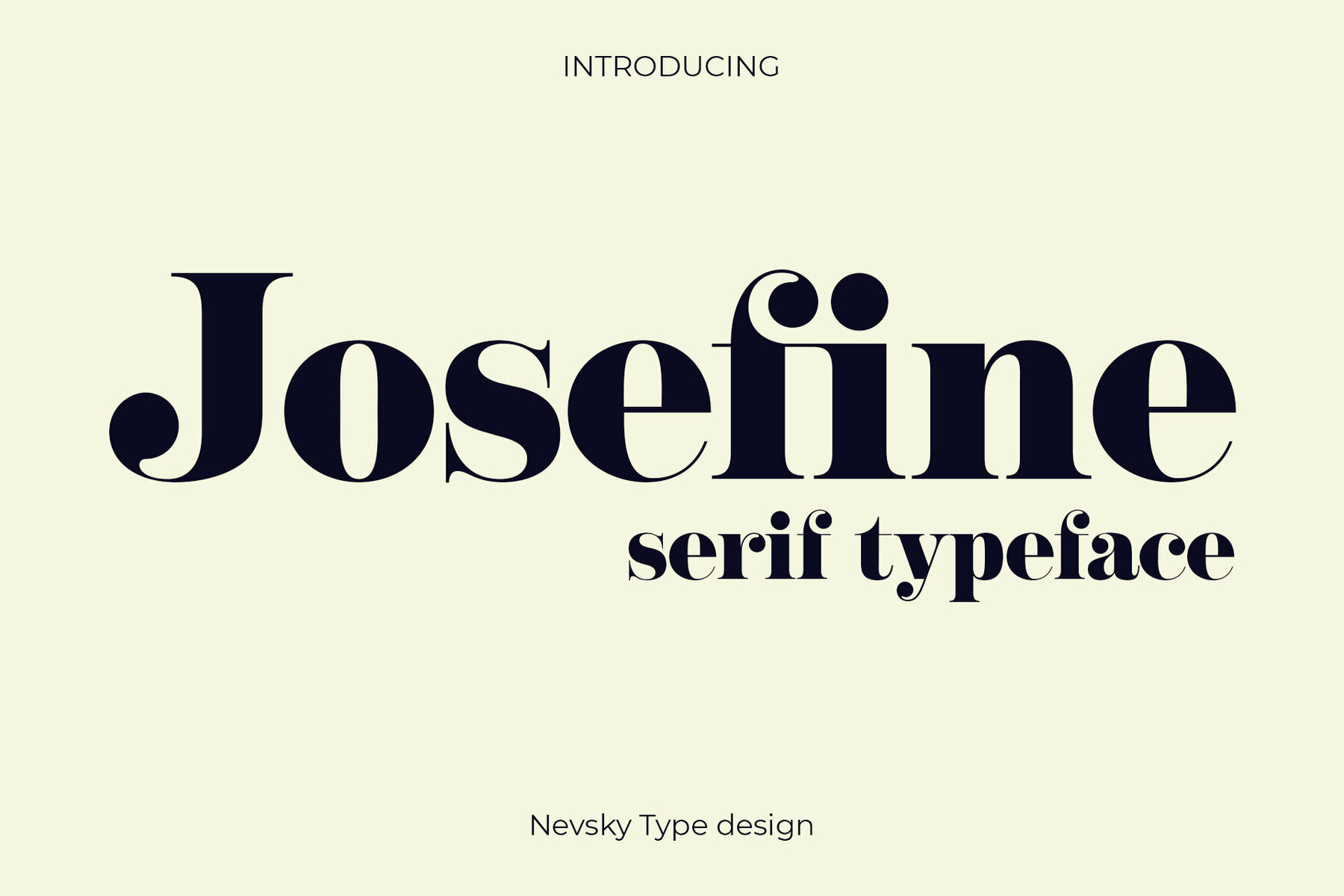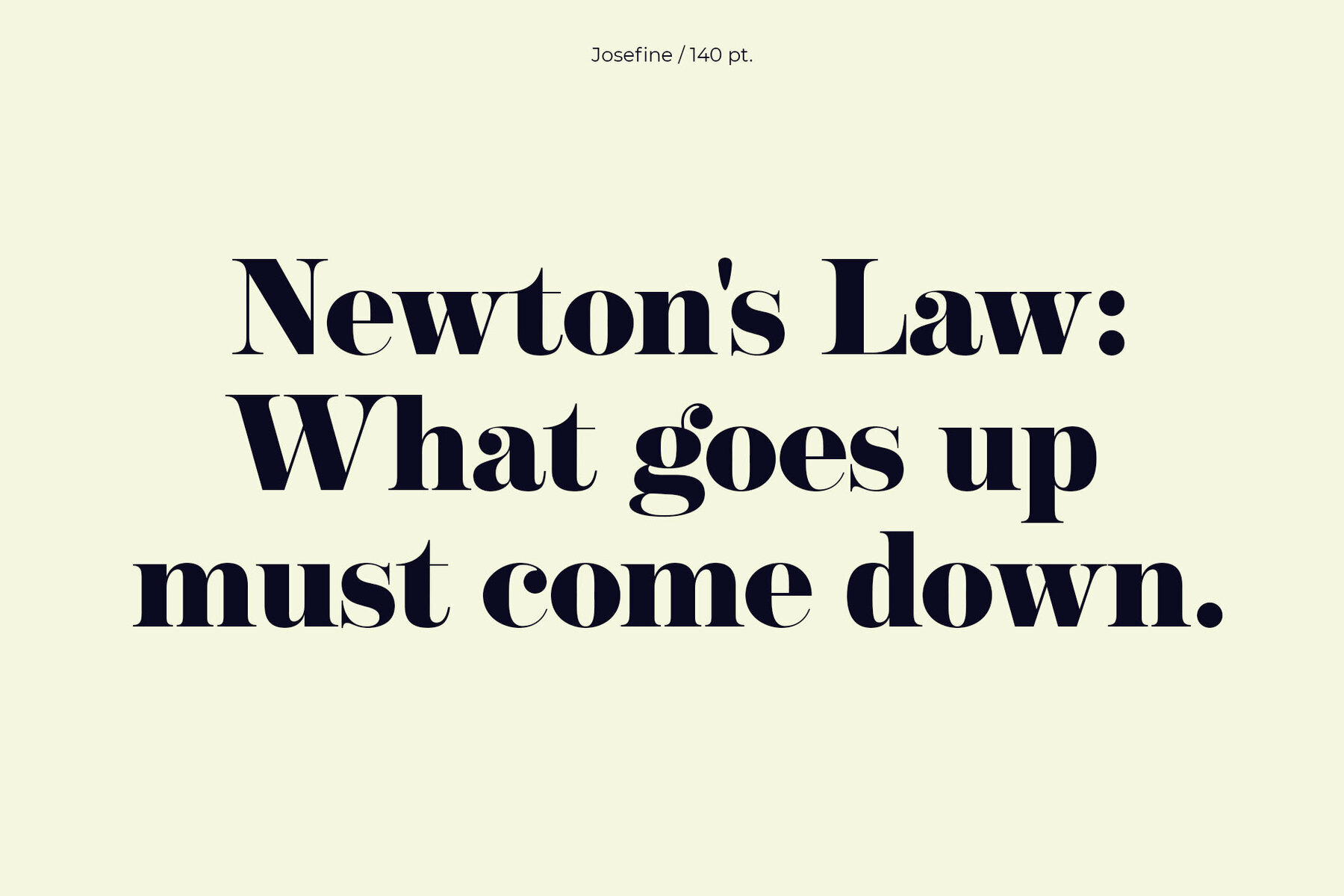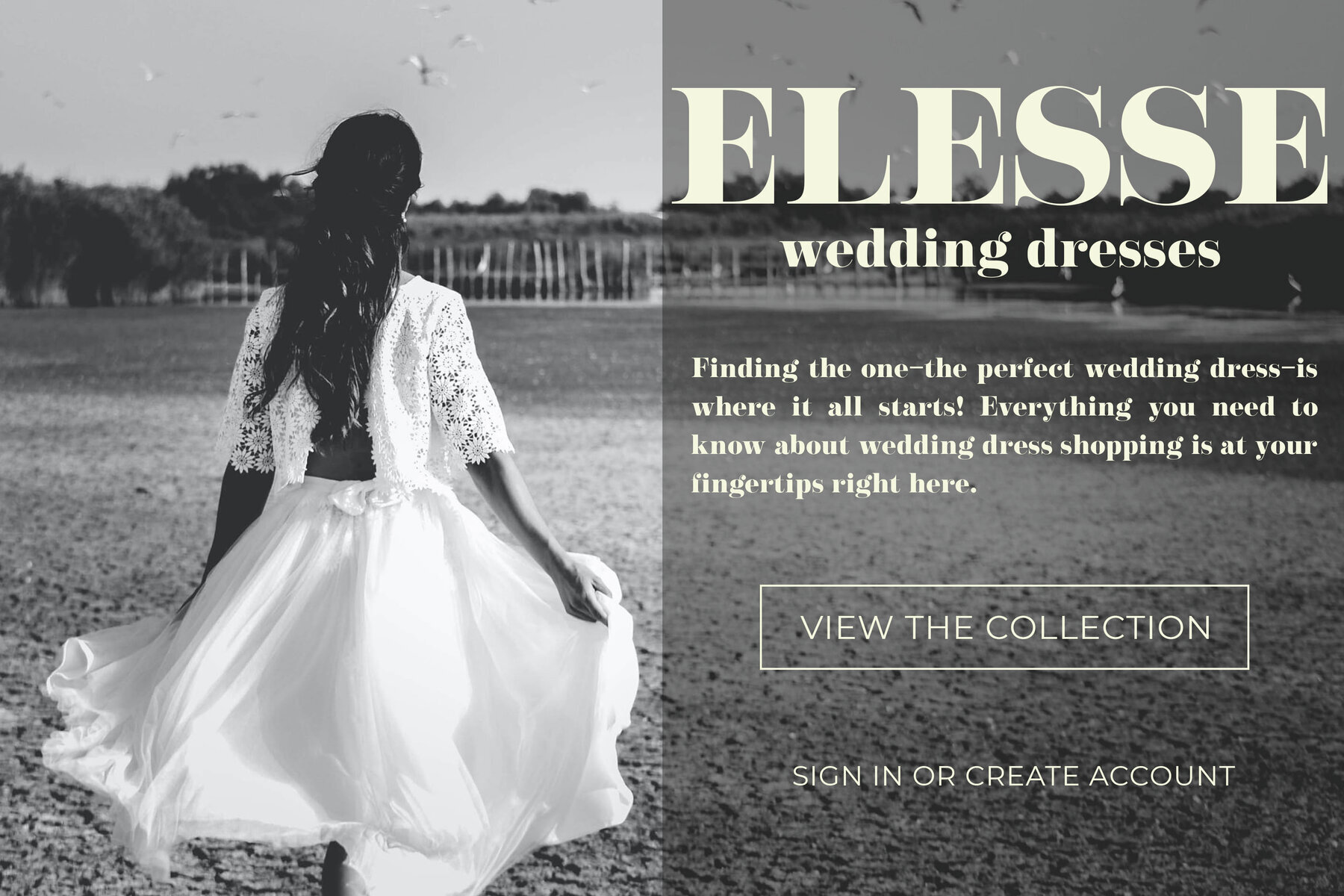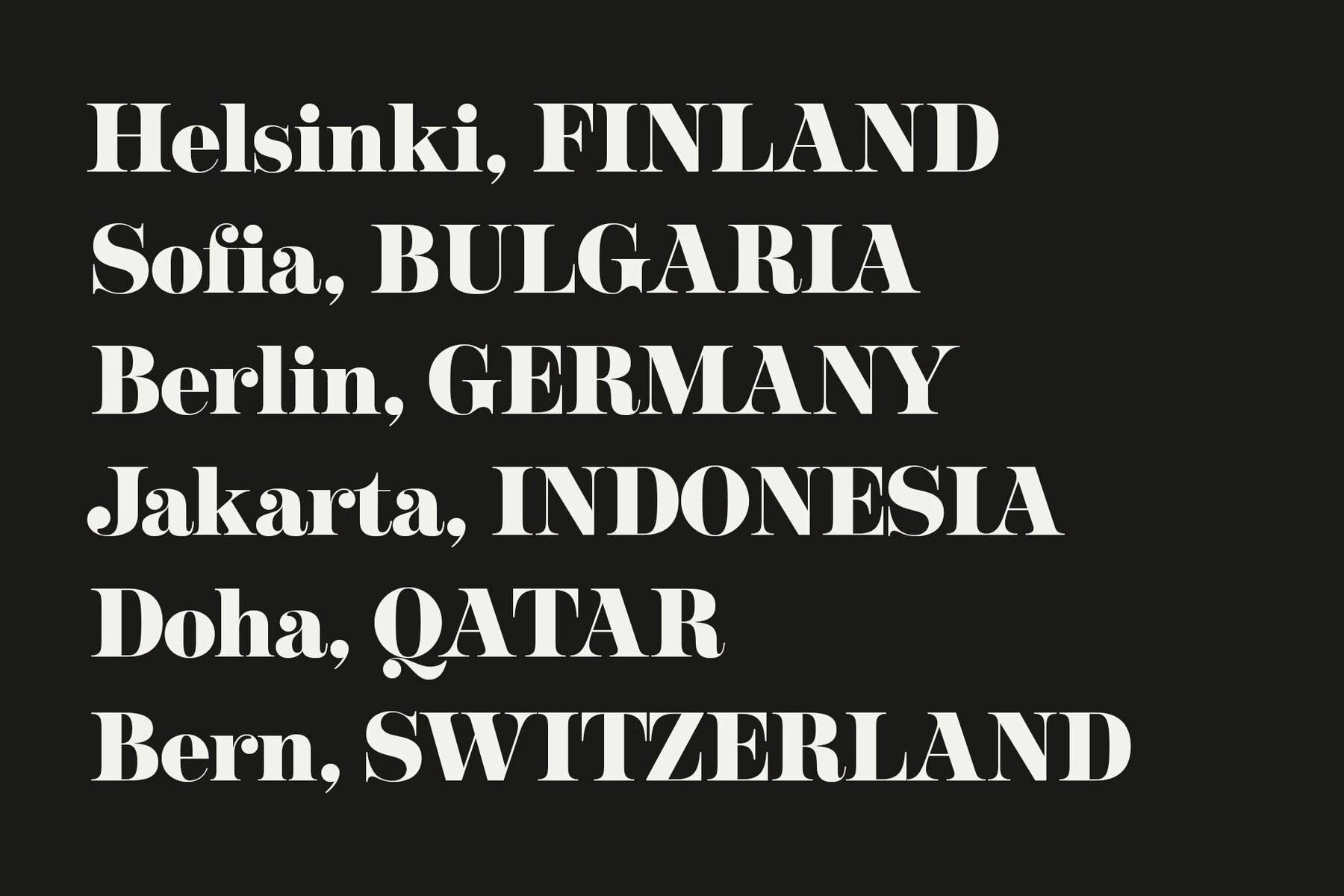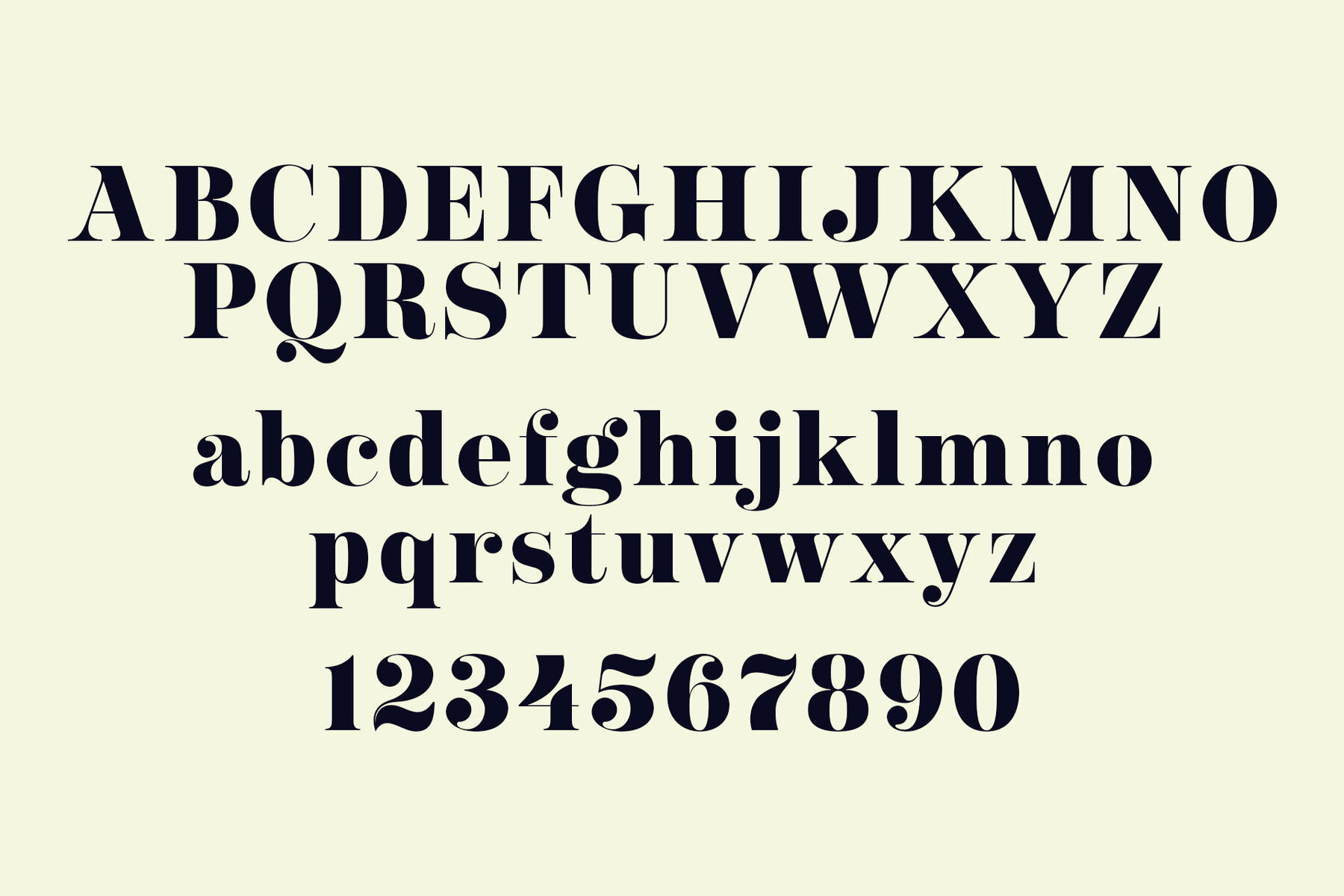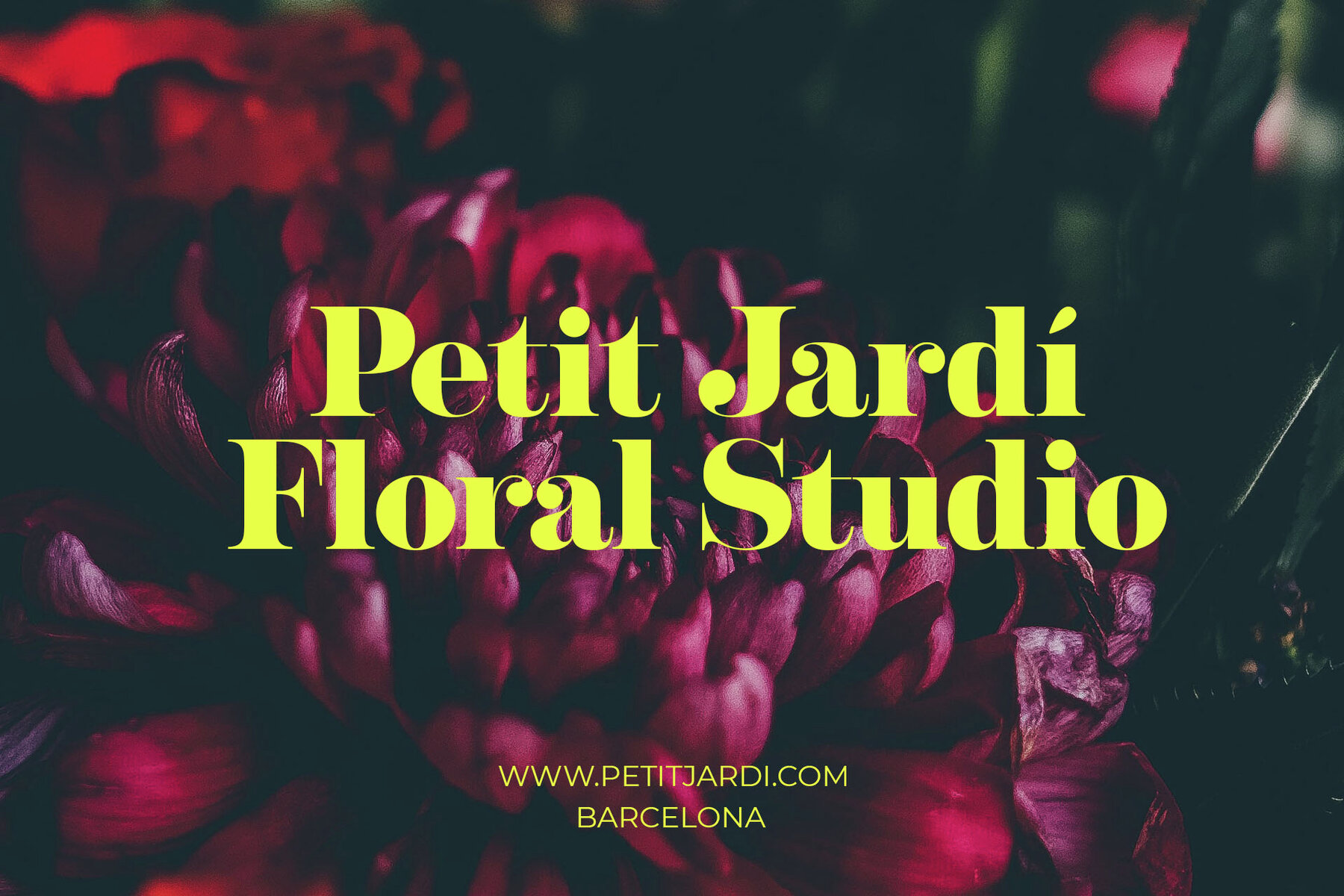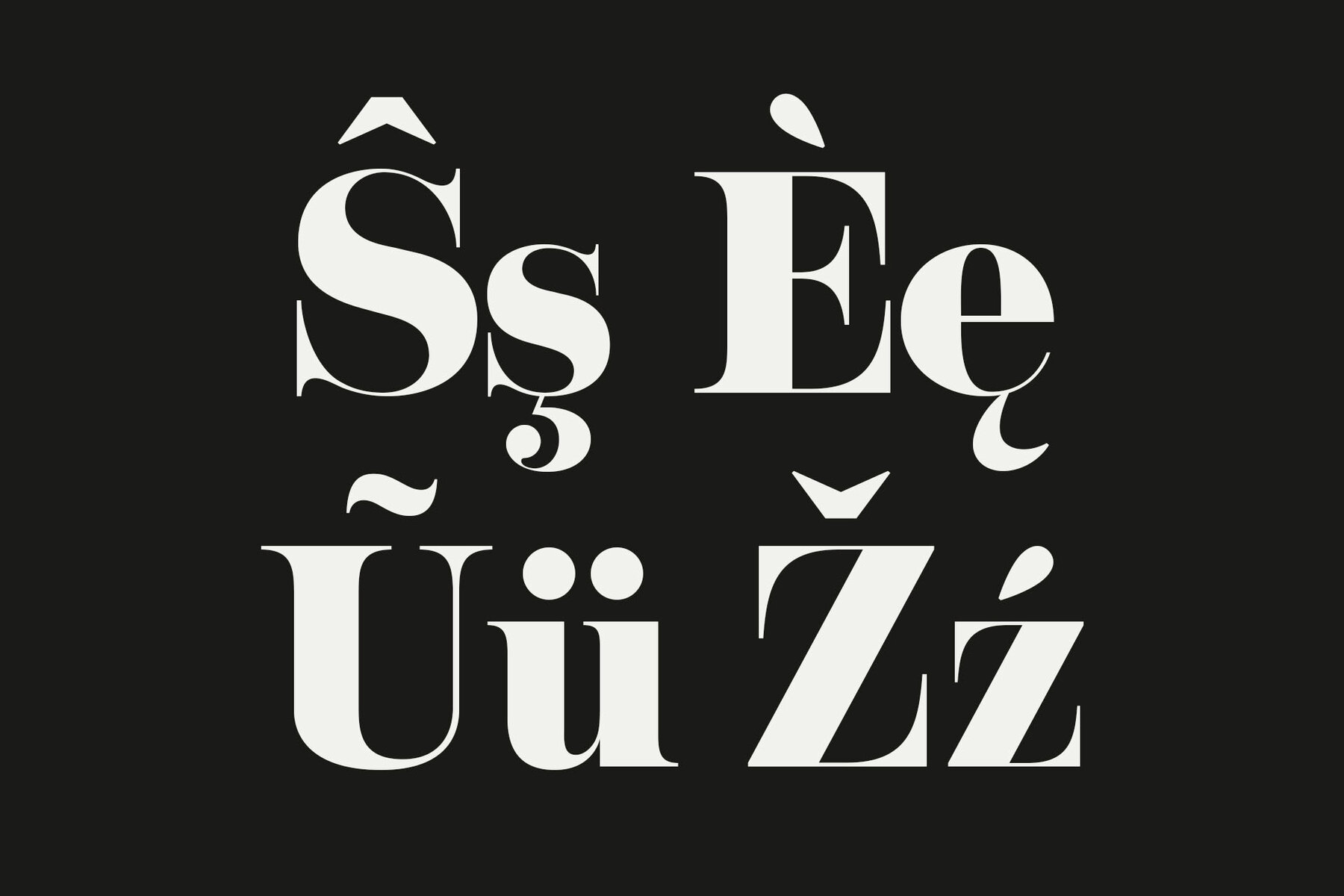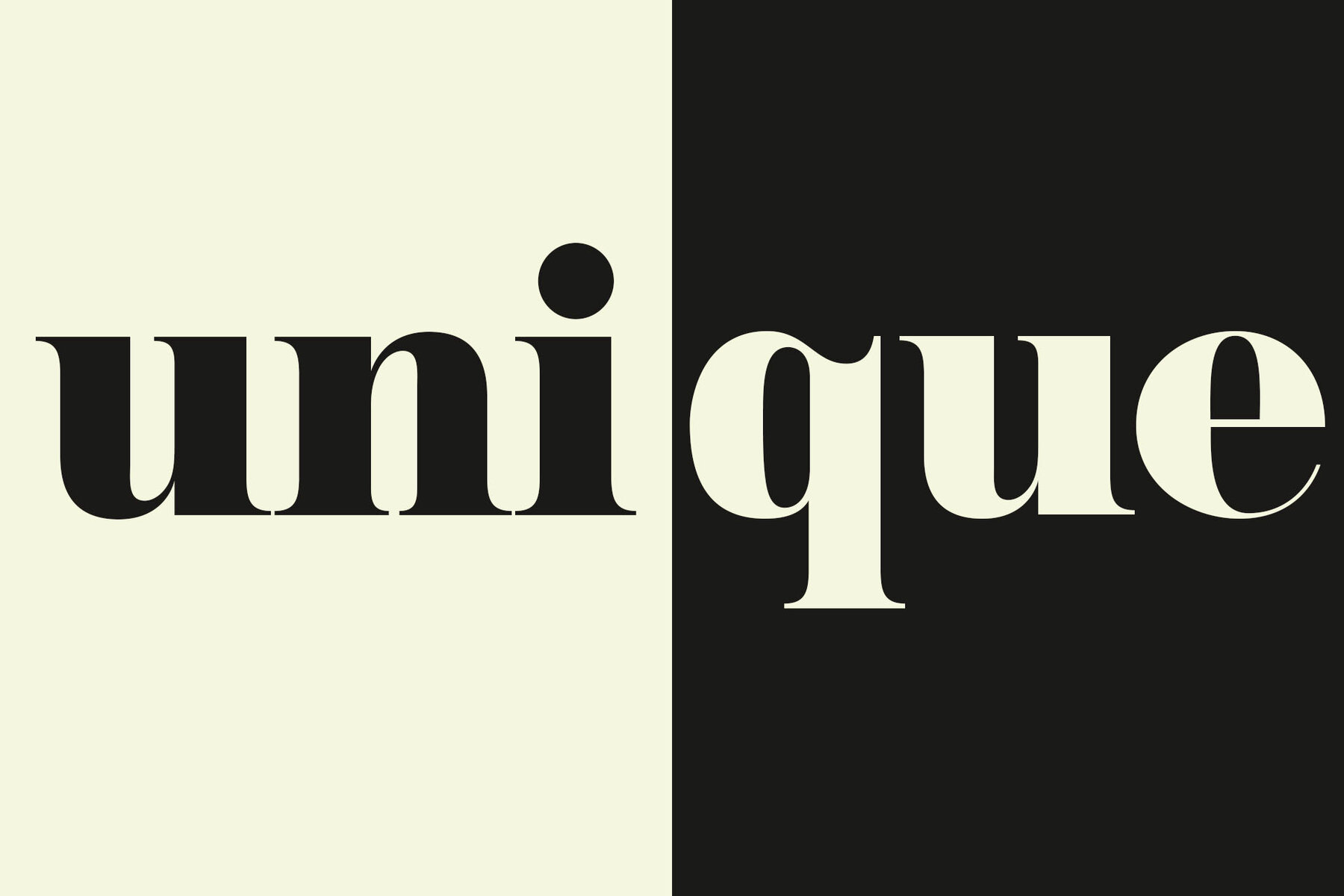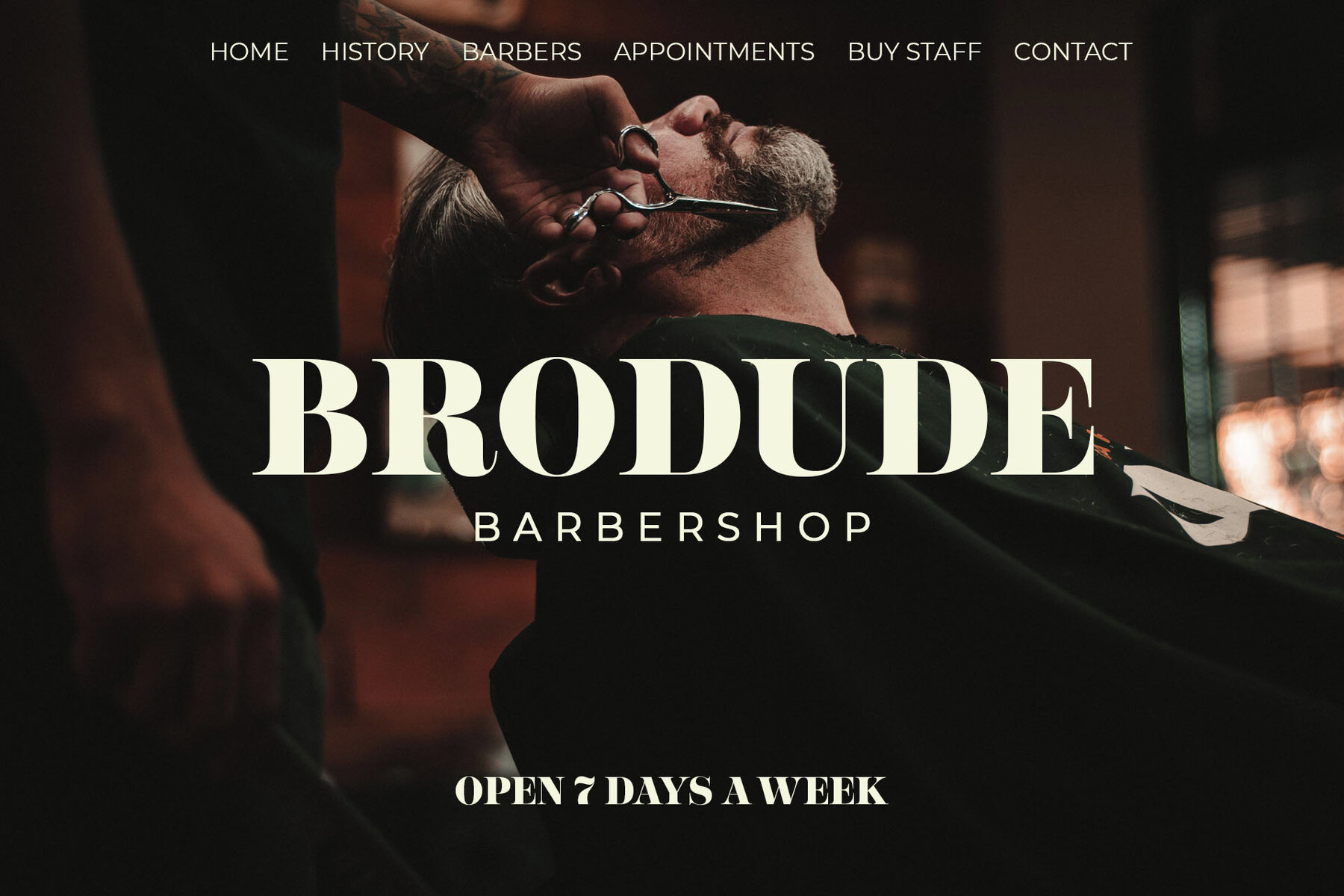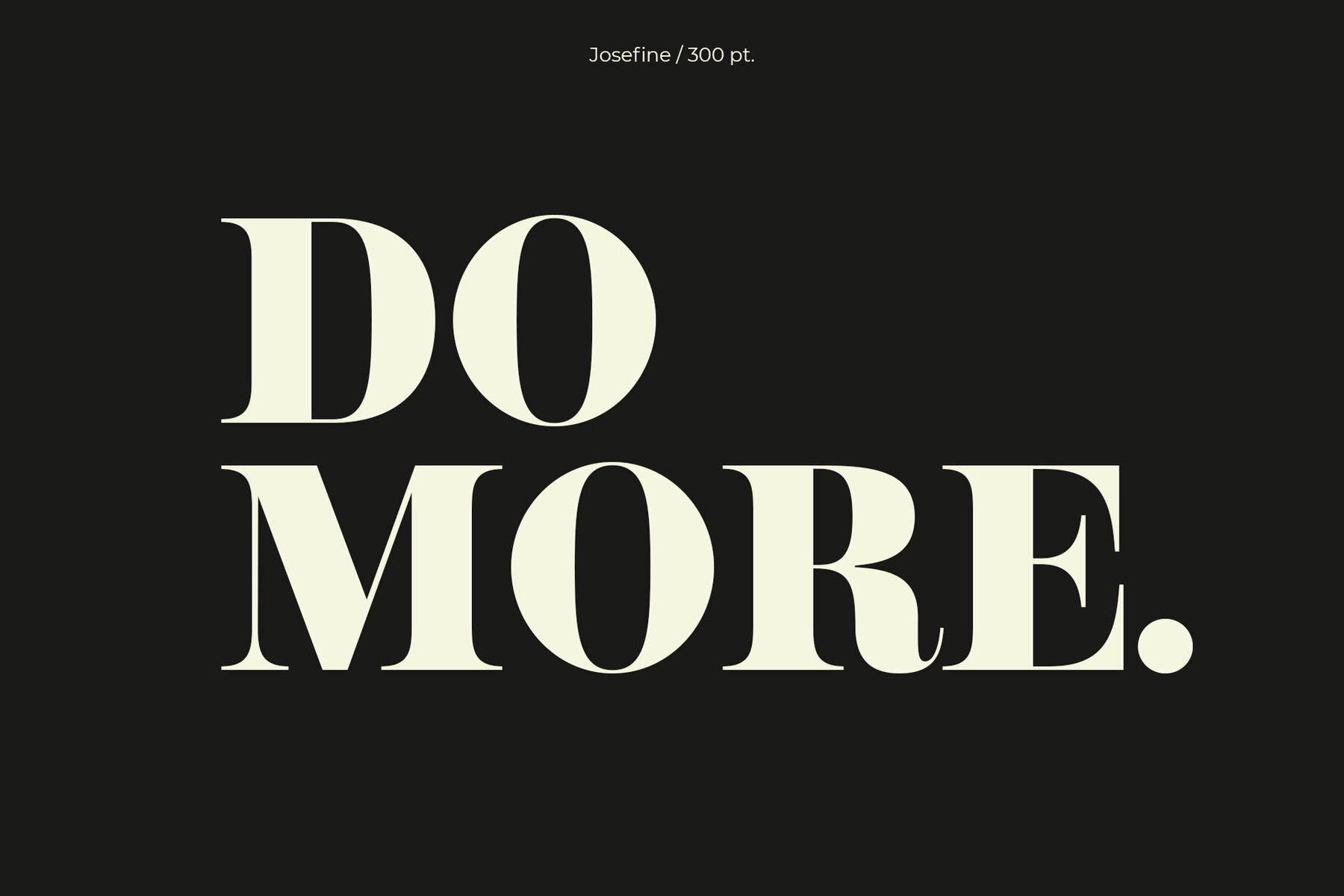
Josefine Font
NT Josefine
Josefine is a beautifully crafted serif font designed by nevsky.type, offering a harmonious blend of elegance and functionality. It supports over 200 Latin-based languages, making it a versatile choice for global communications.Josefine: Elegant Serif with Wide Linguistic Support